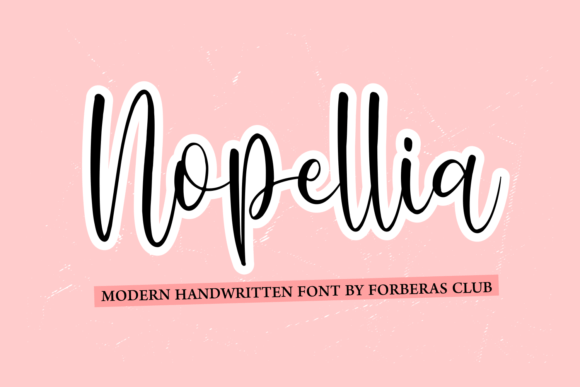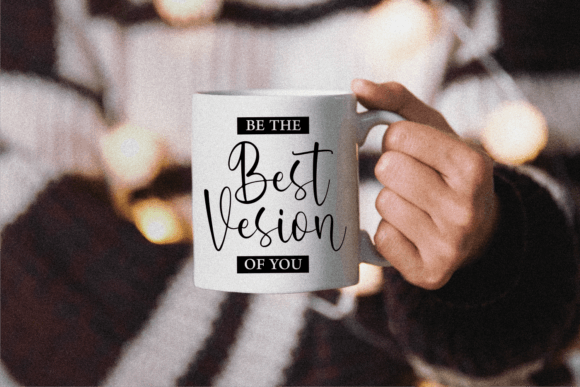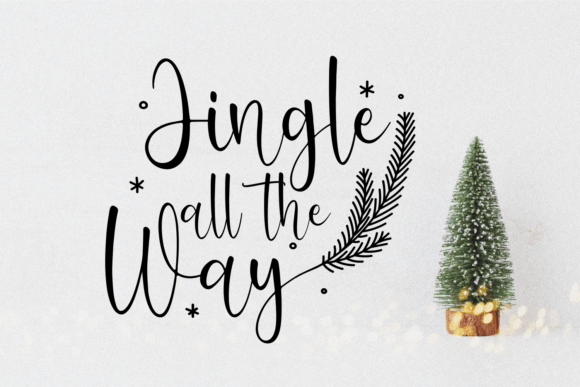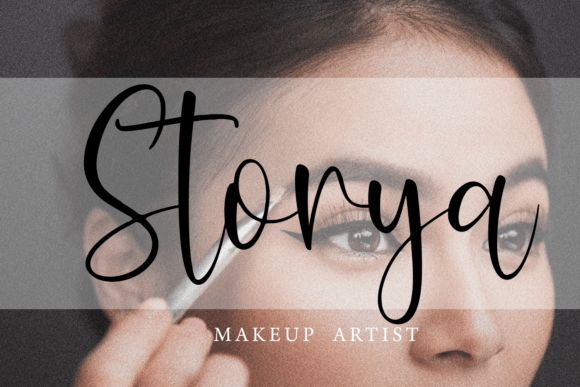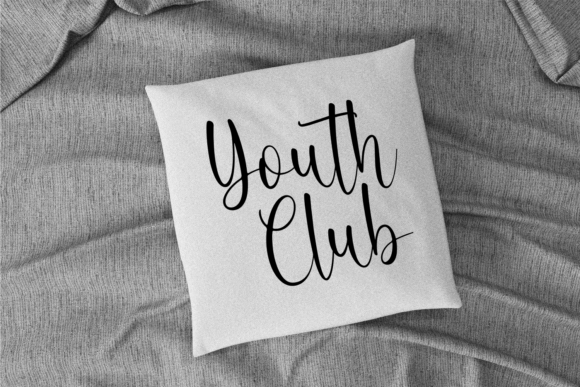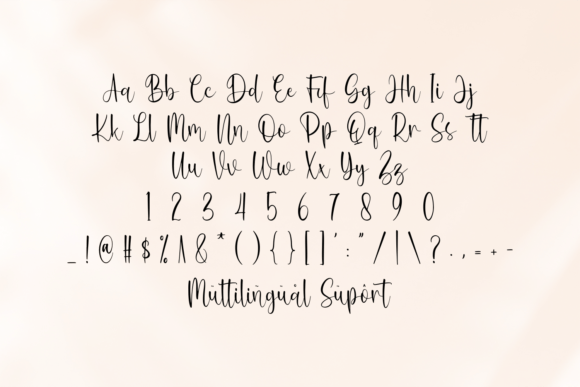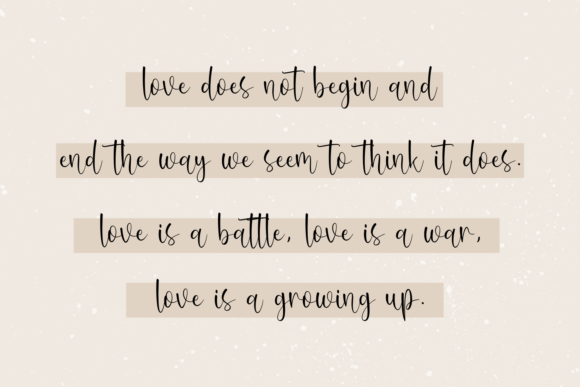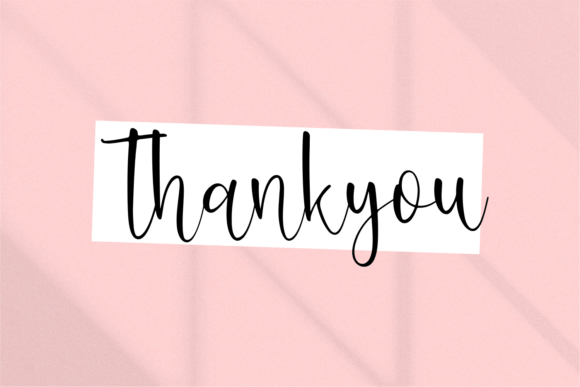
Nopellia Font
About Nopellia Font
Nopellia font is a flowing and elegant handwritten typeface that adds a sophisticated touch to any project. Its beautifully crafted strokes create a natural and stylish look, making it perfect for your favorite creative designs. Whether you are working on branding, invitations, or social media graphics, Nopellia font offers a unique and timeless style that stands out.
When you download Nopelliafont, you gain access to a versatile and graceful typeface designed to elevate your designs. Its smooth, flowing lines convey elegance and creativity, fitting perfectly with modern and classic design needs. This font is ideal for users who want a handwritten font that looks professional yet personal.
Versatile Use for Various Designs
Nopelliafont is excellent for:
• Crafting elegant logos that capture attention
• Designing sophisticated branding materials
• Creating stunning wedding invitations and greeting cards
• Enhancing quotes and social media posts with a personal flair
Its balanced and clear design ensures readability while maintaining artistic charm.
In summary, Nopelliafont is the perfect handwritten font for anyone looking to add an elegant, flowing, and timeless style to their projects. Download Nopelliafont now and create spectacular designs that truly shine.